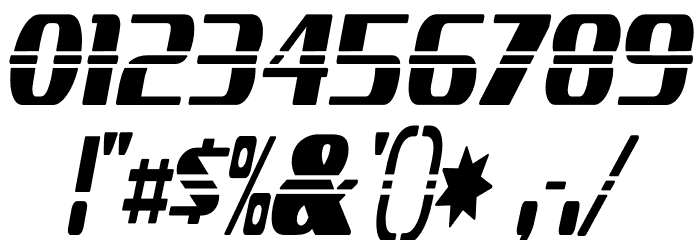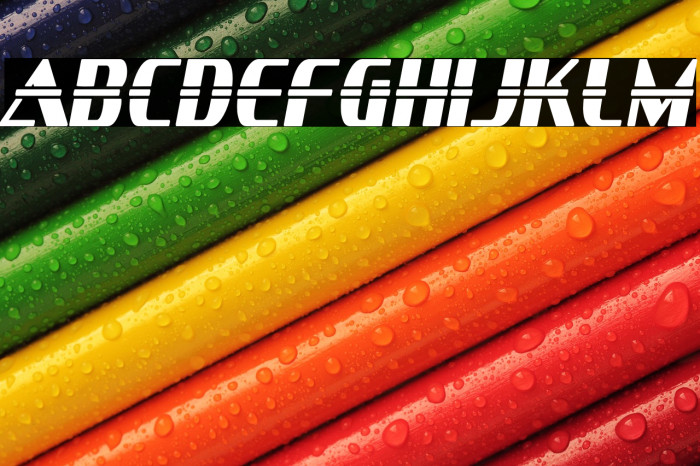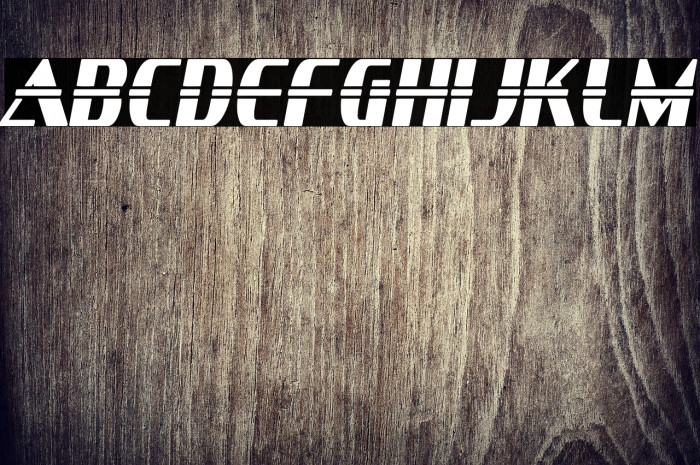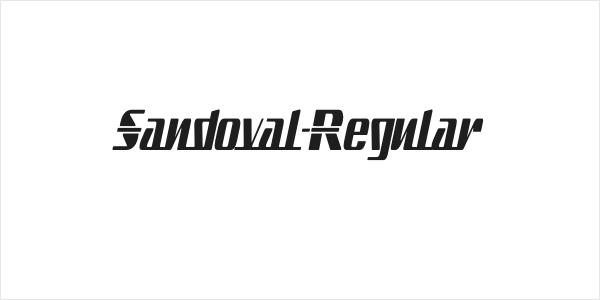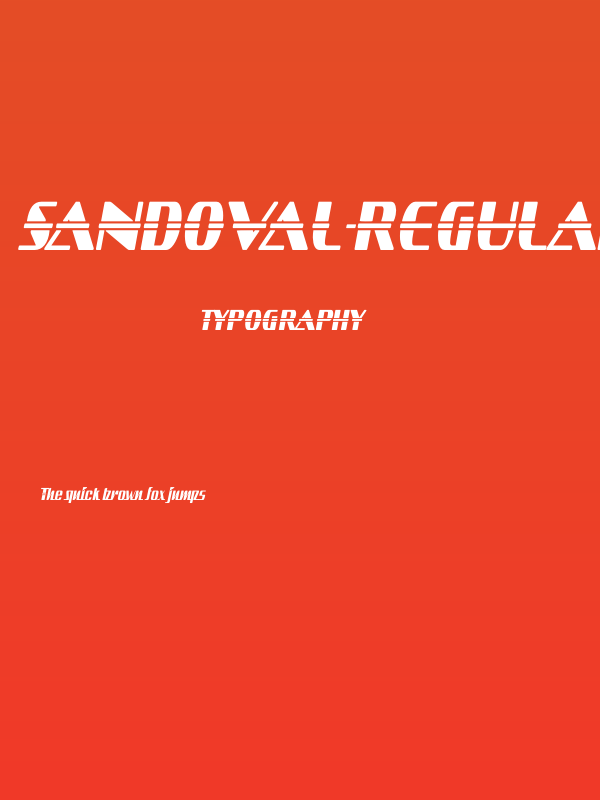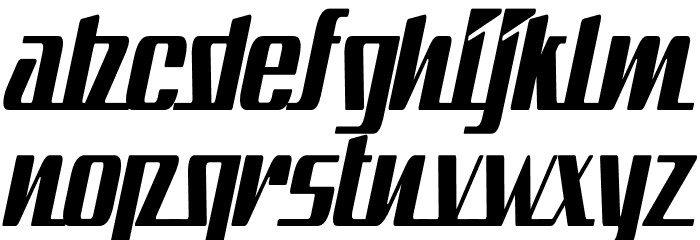
Sandoval-Regular Font
Sandoval-Regular Description
This font features a dynamic and futuristic design with a distinct slanted style, giving it a sense of motion and speed. The characters are bold and angular, with sharp edges and a unique cut-through line that runs horizontally across each letter and number, adding a modern and edgy feel. The uppercase and lowercase letters maintain a consistent style, while the numerals and special characters complement the overall aesthetic. This font is ideal for projects that require a bold and impactful visual statement.
| Proposed Projects | Ideal for sports branding, automotive designs, tech-related projects, and dynamic advertising campaigns. |